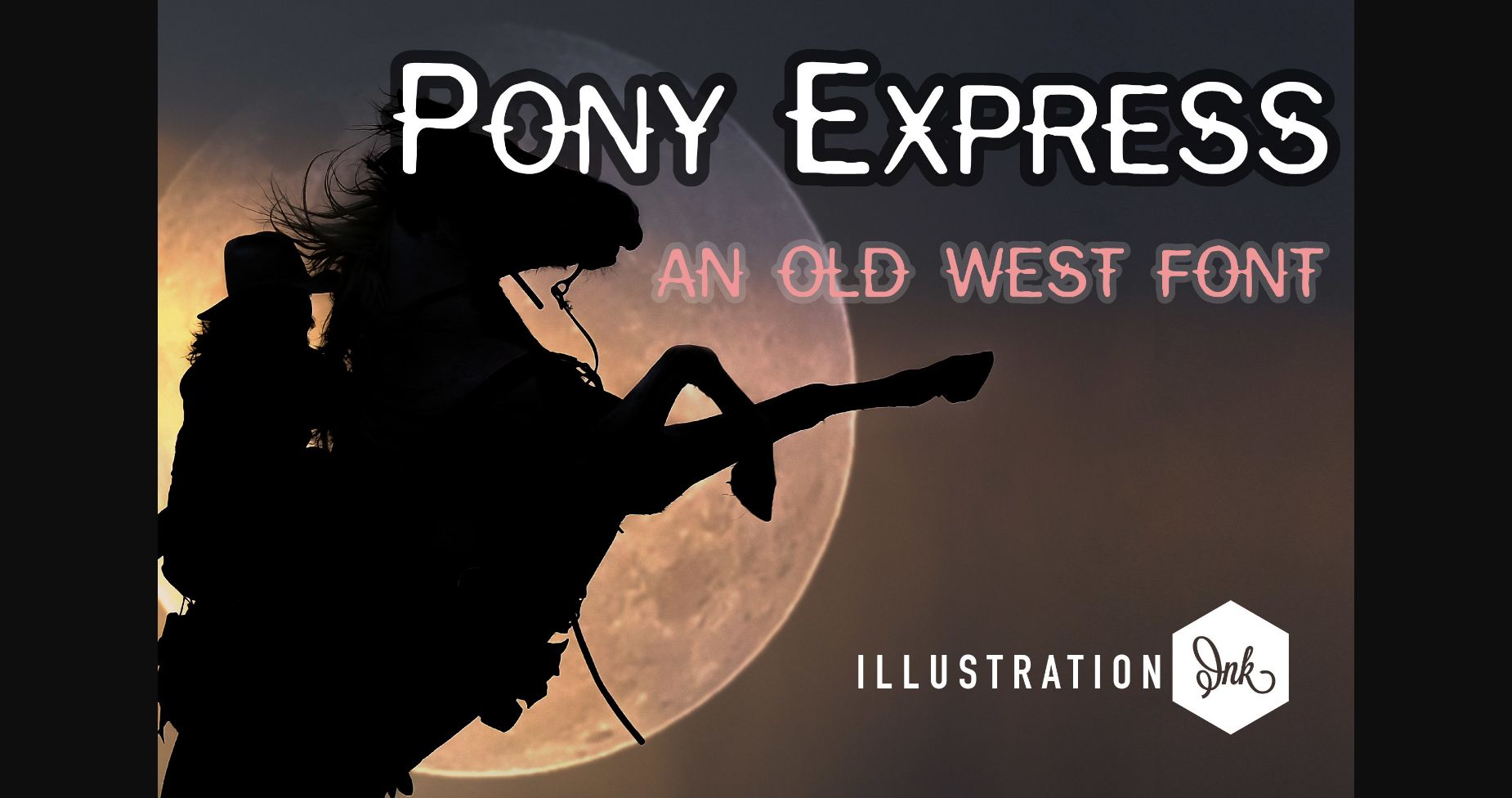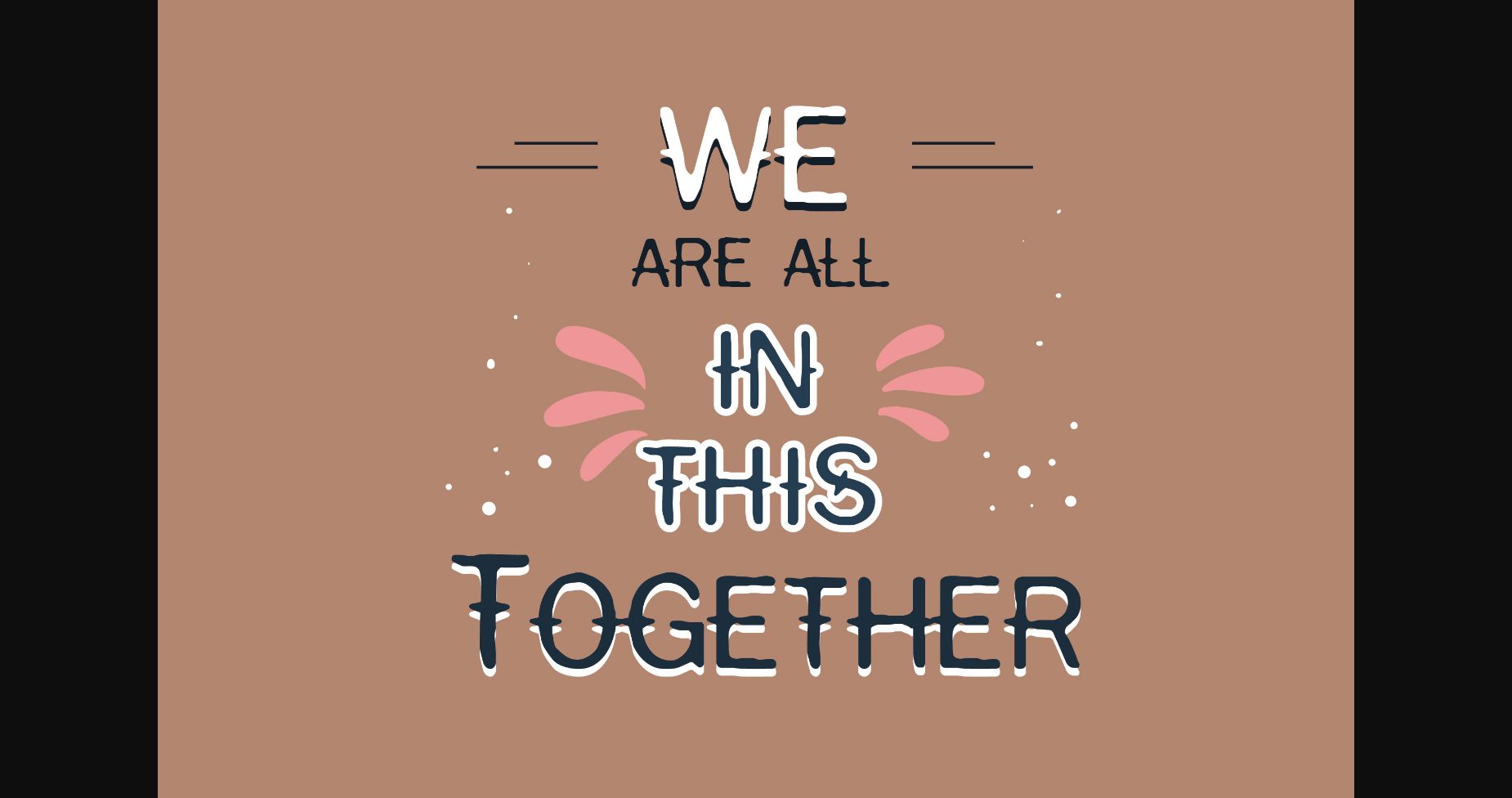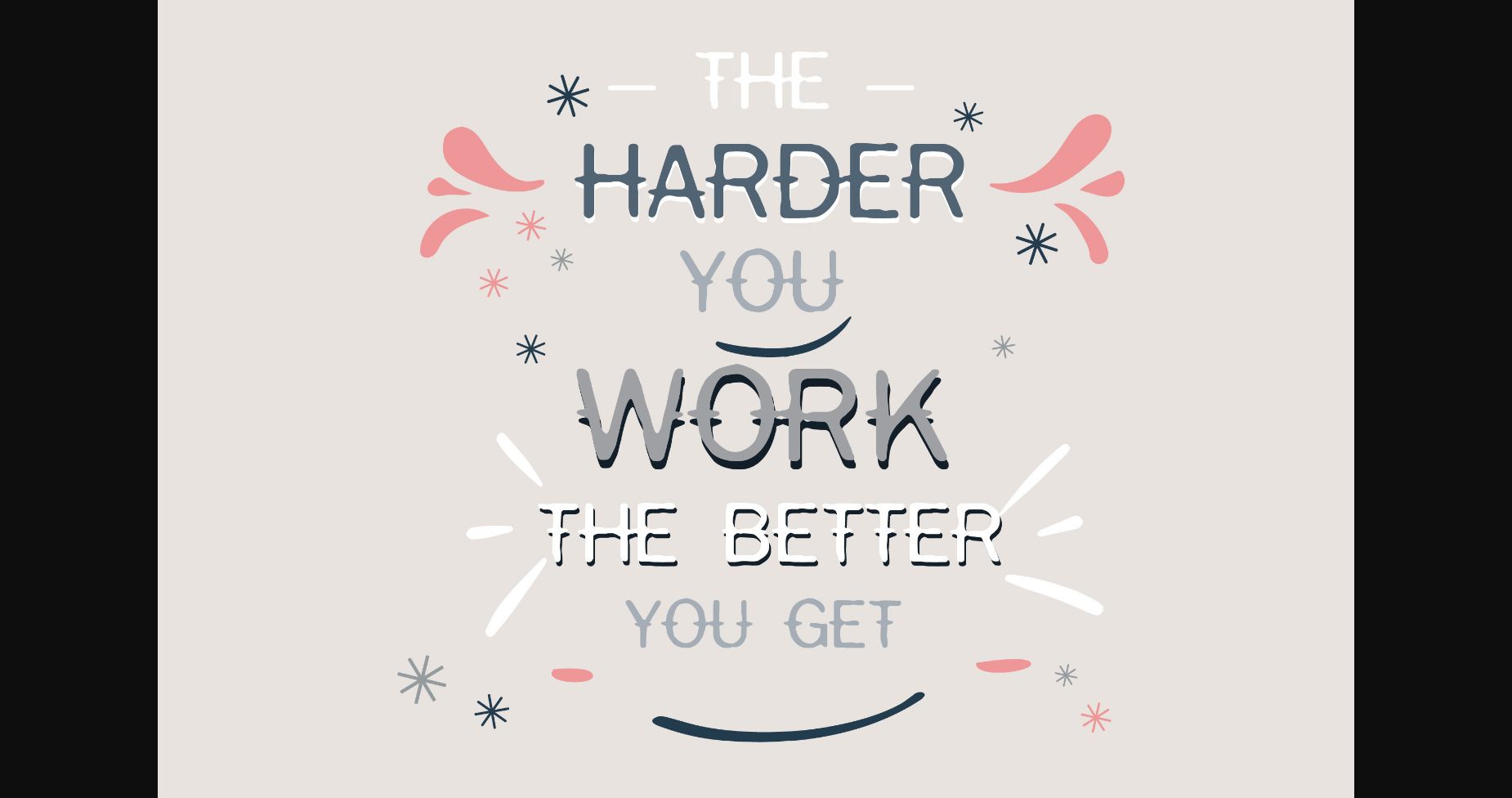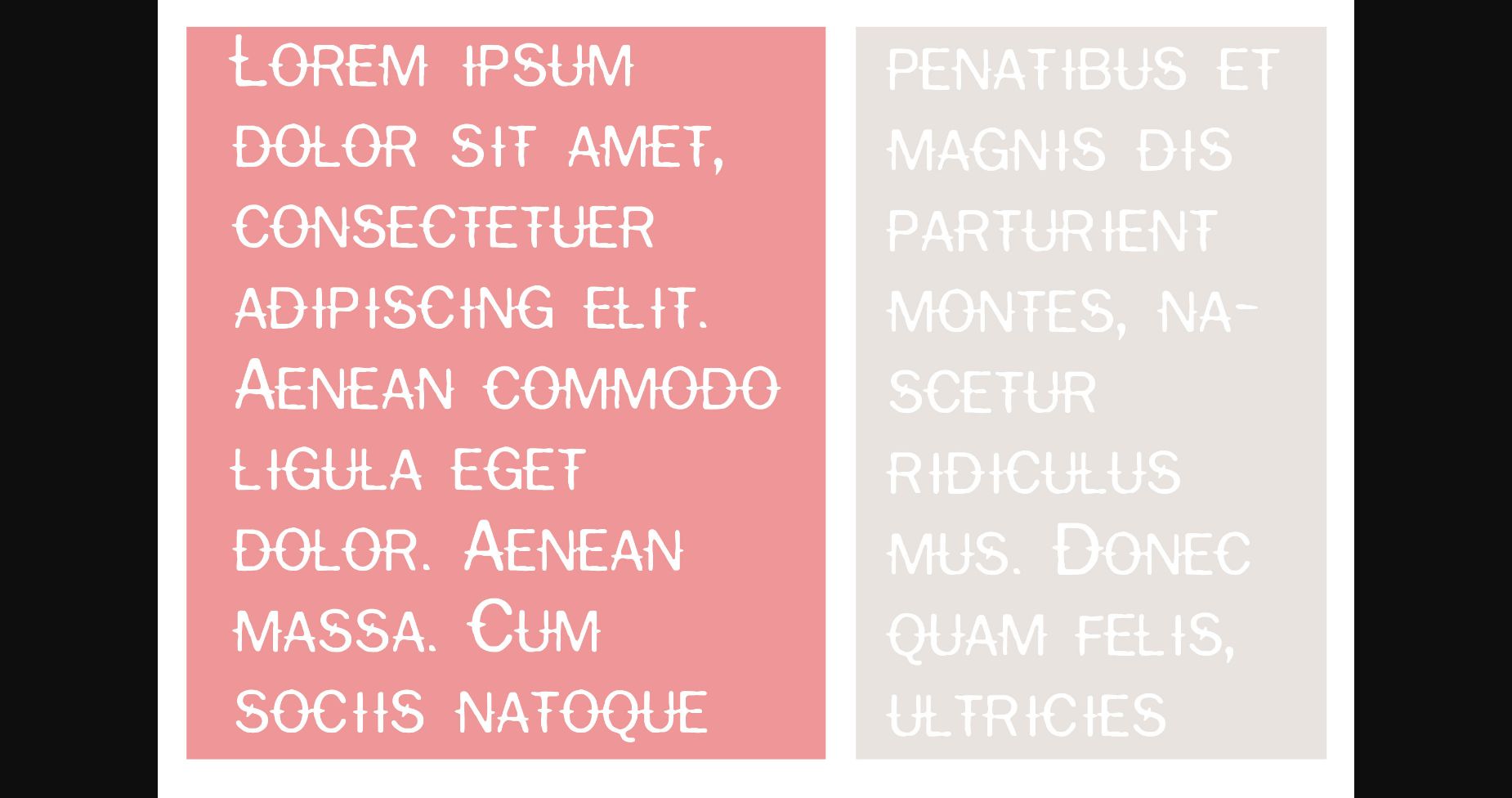
About Pony Express Font
Experience the bold and modern appeal of an attractive sans-serif font. Pony Express features thick and striking lines that create a powerful and commanding presence, making it perfect for headlines, titles, and logos. Its eye-catching design is sure to make a lasting impression, elevating any design project to the next level.